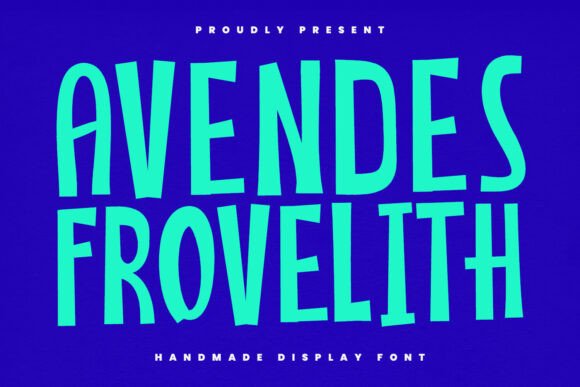
Introducing Avendes Frovelith Font: A Unique Handmade Display Font
Are you looking for a font that can add a personal touch to your designs? Do you want to create titles, logos, or other visual elements that stand out from the crowd? Look no further than Avendes Frovelith Font, a unique handmade display font with a creative, artistic style.
What is Avendes Frovelith Font?
Avendes Frovelith Font is a one-of-a-kind, handmade display font that features bold, expressive letters. Its creative, artistic style gives it a personal, crafted feel that is perfect for designers who want to add a distinctive touch to their work. Whether you’re creating a title, logo, or other design element, Avendes Frovelith Font is the perfect choice.
Key Features of Avendes Frovelith Font
So, what makes Avendes Frovelith Font so special? Here are just a few of its key features:
- Handmade with love and care: Avendes Frovelith Font is a truly unique font that has been crafted with love and care. Each letter has been carefully designed to give it a personal, human touch.
- Bold and expressive letters: The letters in Avendes Frovelith Font are bold and expressive, making it perfect for titles, logos, and other design elements that need to make a statement.
- Creative and artistic style: Avendes Frovelith Font has a creative, artistic style that sets it apart from other fonts. Its unique look and feel make it perfect for designers who want to add a touch of personality to their work.
- Perfect for titles, logos, and more: Avendes Frovelith Font is perfect for any design that needs a distinctive touch. Use it for titles, logos, headings, and any other design element that needs to stand out.
Why Choose Avendes Frovelith Font?
So, why should you choose Avendes Frovelith Font for your next design project? Here are just a few reasons:
- Add a personal touch: Avendes Frovelith Font is the perfect way to add a personal touch to your designs. Its handmade, crafted feel gives it a unique personality that will set your work apart.
- Stand out from the crowd: With Avendes Frovelith Font, you can create designs that truly stand out from the crowd. Its bold, expressive letters and creative style make it perfect for designers who want to make a statement.
- Perfect for creative projects: Avendes Frovelith Font is perfect for creative projects, such as art, design, and writing. Its unique style and feel make it a great choice for anyone who wants to add a touch of personality to their work.
How to Use Avendes Frovelith Font
Using Avendes Frovelith Font is easy. Here are just a few tips:
- Use it for titles and headings: Avendes Frovelith Font is perfect for titles and headings. Its bold, expressive letters make it easy to read and understand.
- Add it to your logo: Avendes Frovelith Font is a great choice for logos. Its unique style and feel make it perfect for creating a memorable brand identity.
- Experiment with different colors and textures: Avendes Frovelith Font looks great in a variety of colors and textures. Experiment with different combinations to find the one that works best for your design.
Tips and Tricks for Working with Avendes Frovelith Font
Here are a few tips and tricks for working with Avendes Frovelith Font:
- Pair it with other fonts: Avendes Frovelith Font looks great when paired with other fonts. Try pairing it with a clean, sans-serif font for a unique contrast.
- Use it sparingly: Avendes Frovelith Font is a bold, expressive font. Use it sparingly to avoid overwhelming your design.
- Experiment with different sizes: Avendes Frovelith Font looks great in a variety of sizes. Experiment with different sizes to find the one that works best for your design.
Avendes Frovelith Font is a unique handmade display font with a creative, artistic style. Its bold, expressive letters and personal, crafted feel make it perfect for titles, logos, and any design that needs a distinctive touch. With its ease of use and versatility, Avendes Frovelith Font is a great choice for designers who want to add a touch of personality to their work.